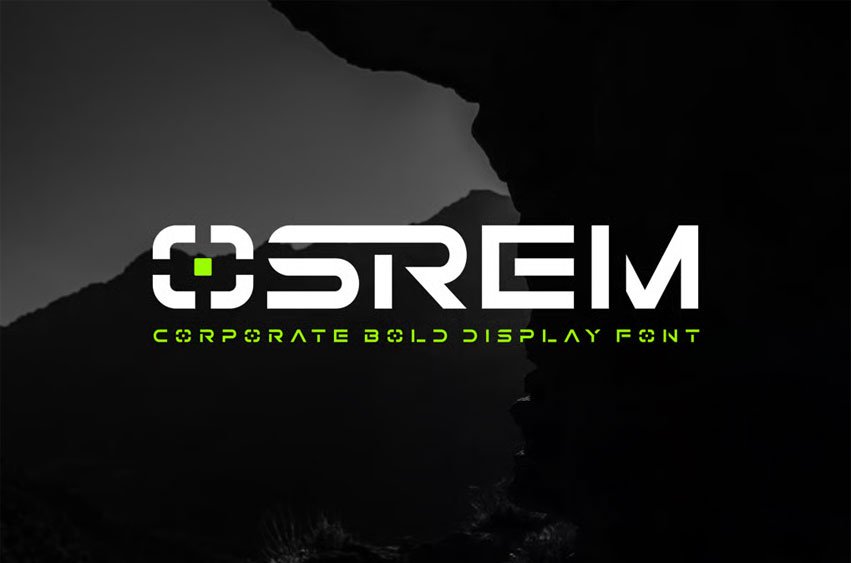
Osrem Font Corporate Display Font is a bold and authentic display font. The font is suitable for any branding project like logo, esport, and many more.
outstanding in a wide range of contexts.